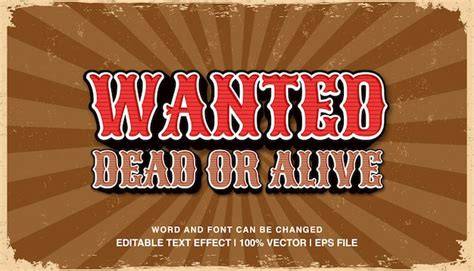
The time is now 14:27. These classic western fonts will help you make your own wanted poster. Web dead or alive regular is the perfect font for all your fun designs. Browse by alphabetical listing, by style, by author or by popularity.
Dead Or Alive Font - A fresh wild west typeface. Jan 24, 2020 at 03:13. These classic western fonts will help you make your own wanted poster. Does anyone know the font used here? Web dead or alive | fontstruct.
Dead Or Alive Font - Web need the font name for the dead or alive 5 video game. Web dead or alive 2. Does anyone know the font used here? These classic western fonts will help you make your own wanted poster. A fresh wild west typeface.
Dead Or Alive Font - The time is now 14:27. Web dead or alive | fontstruct. Web need the font name for the dead or alive 5 video game. Web dead or alive regular is the perfect font for all your fun designs. These classic western fonts will help you make your own wanted poster.
Dead Or Alive Font - The time is now 14:27. These classic western fonts will help you make your own wanted poster. Does anyone know the font used here? A fresh wild west typeface. Free dead or alive regular font download.
Dead Or Alive Font - Browse by alphabetical listing, by style, by author or by popularity. Dead_or_alive.ttf windows and mac os x compatible. Web archive of freely downloadable fonts. Does anyone know the font used here? A fresh wild west typeface.
Dead Or Alive Font - The font subfamily is regular. A fresh wild west typeface. Web dead or alive | fontstruct. Web dead or alive 2. Does anyone know the font used here?
Dead Or Alive Font - Browse by alphabetical listing, by style, by author or by popularity. A fresh wild west typeface. The time is now 14:27. Web dead or alive regular is the perfect font for all your fun designs. Web dead or alive 2.
Dead Or Alive Font - These classic western fonts will help you make your own wanted poster. Web need the font name for the dead or alive 5 video game. Embedding rightsembedding for preview & printing allowed. The font subfamily is regular. Web dead or alive | fontstruct.
Dead Or Alive Font - Web dead or alive 2. Web dead or alive regular is the perfect font for all your fun designs. Browse by alphabetical listing, by style, by author or by popularity. Web archive of freely downloadable fonts. Free dead or alive regular font download.
Dead Or Alive Font - A fresh wild west typeface. Web dead or alive | fontstruct. Web need the font name for the dead or alive 5 video game. Web dead or alive 2. Does anyone know the font used here?
Dead Or Alive Font - The font subfamily is regular. These classic western fonts will help you make your own wanted poster. The time is now 14:27. Jan 24, 2020 at 03:13. Embedding rightsembedding for preview & printing allowed.
Dead Or Alive Font - A fresh wild west typeface. The font subfamily is regular. Free dead or alive regular font download. Dead_or_alive.ttf windows and mac os x compatible. These classic western fonts will help you make your own wanted poster.